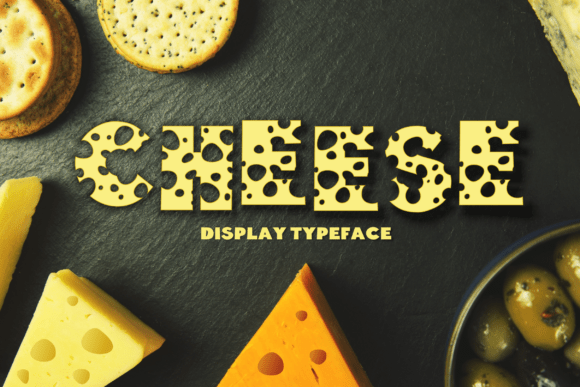
🧀 Cheese Font: The Ultimate Guide to Adding a Playful Twist to Your Typography
Are you looking for a font that can add a dash of fun and whimsy to your design projects? Look no further than the 🧀 Cheese font! This novelty display typeface is guaranteed to bring a smile to your audience with its uniquely playful, food-inspired texture. In this article, we’ll dive into the world of 🧀 Cheese font, exploring its features, uses, and benefits, as well as provide tips on how to make the most of this delightful font.
What is 🧀 Cheese Font?
The 🧀 Cheese font is a fun and playful display typeface that is designed to mimic the iconic look of Swiss cheese. Every letterform is robust and chunky, but the interior of the glyphs is riddled with perfectly circular holes, giving it a delightfully quirky texture. This font is perfect for adding a touch of whimsy and fun to your design projects, making it an excellent choice for a variety of applications.
Features of 🧀 Cheese Font
The 🧀 Cheese font has several features that make it stand out from other typefaces. Some of its key features include:
- Unique texture: The font’s texture is inspired by the holes found in Swiss cheese, giving it a one-of-a-kind look.
- Robust and chunky letterforms: The letterforms are bold and sturdy, making them perfect for headlines and titles.
- Playful and whimsical: The font’s playful texture and design make it perfect for adding a touch of fun to your designs.
Uses of 🧀 Cheese Font
The 🧀 Cheese font is an incredibly versatile typeface that can be used in a variety of applications. Some of the most popular uses for this font include:
- Packaging in the food industry: The font’s food-inspired texture makes it a natural fit for packaging in the food industry.
- Children’s menus: The font’s playful and whimsical design makes it perfect for children’s menus and other kid-friendly applications.
- Promotional materials for restaurants and bakeries: The font’s fun and quirky texture makes it an excellent choice for promotional materials, such as flyers, brochures, and posters.
- Game titles: The font’s bold and playful design makes it perfect for game titles and other gaming applications.
Benefits of Using 🧀 Cheese Font
There are several benefits to using the 🧀 Cheese font in your design projects. Some of the most significant advantages include:
- Instant recognition: The font’s unique texture and design make it instantly recognizable, adding a touch of fun and whimsy to your designs.
- Memorability: The font’s playful and quirky design makes it more memorable, helping your audience to better recall your message.
- Eye-catching: The font’s bold and chunky letterforms make it perfect for headlines and titles, grabbing the attention of your audience and drawing them in.
Tips for Using 🧀 Cheese Font
To get the most out of the 🧀 Cheese font, here are a few tips to keep in mind:
- Use it sparingly: While the font is fun and playful, it can be overwhelming if used too much. Use it sparingly to add a touch of whimsy to your designs.
- Pair it with a neutral font: Pairing the 🧀 Cheese font with a neutral font can help to balance out the design and prevent it from feeling too playful.
- Experiment with colors: The font’s playful texture makes it perfect for experimenting with different colors and color combinations.
The 🧀 Cheese font is a fun and playful typeface that is guaranteed to bring a smile to your audience. With its uniquely playful, food-inspired texture and robust and chunky letterforms, it’s perfect for adding a touch of whimsy and fun to your design projects. Whether you’re working on packaging in the food industry, children’s menus, promotional materials for restaurants and bakeries, game titles, or any other project that needs an immediate sense of quirky fun, deliciousness, and creative novelty, the 🧀 Cheese font is an excellent choice.
Get Creative with 🧀 Cheese Font
So why wait? Get creative with the 🧀 Cheese font today and add a touch of fun and whimsy to your design projects! With its unique texture, robust letterforms, and playful design, it’s the perfect way to make your designs stand out and leave a lasting impression on your audience.